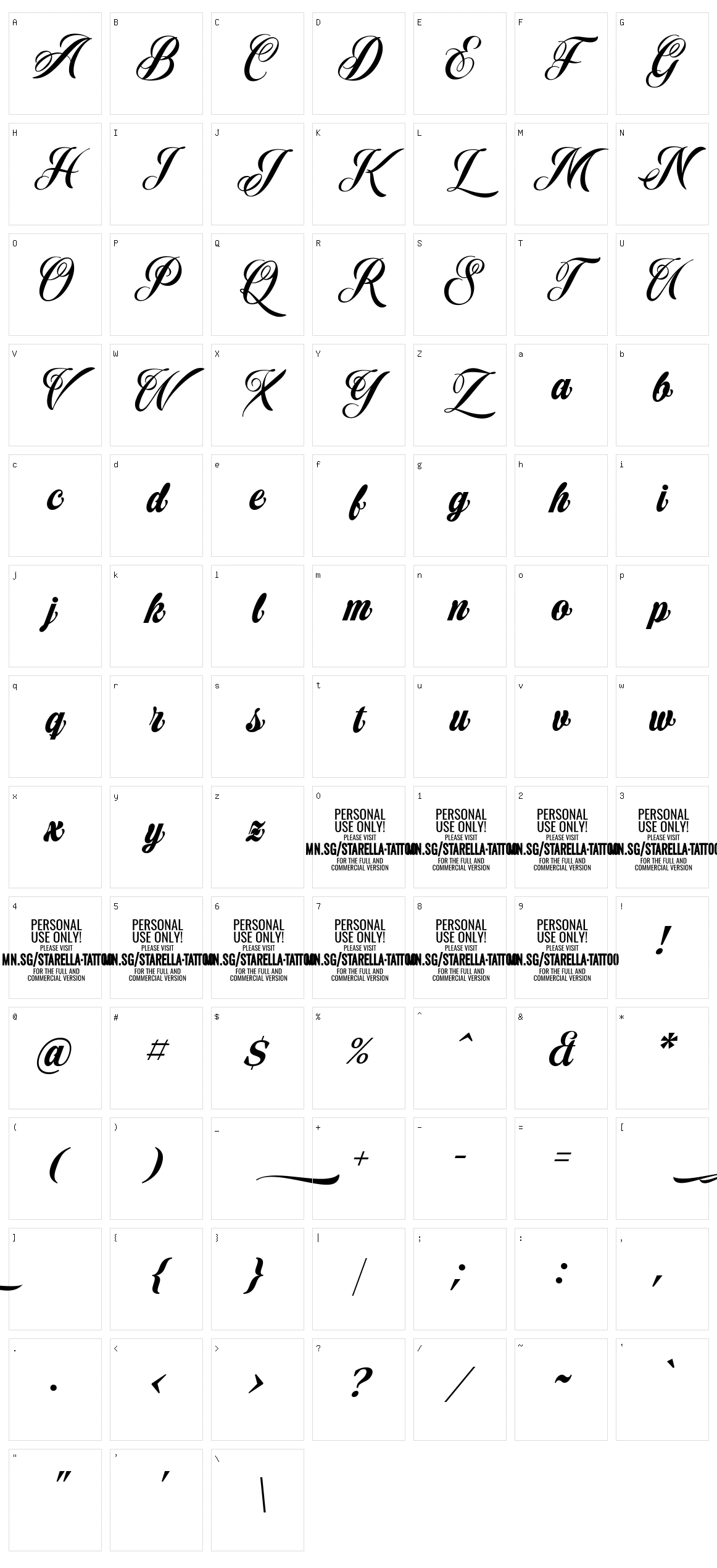
Starella Tattoo is a professional typeface with flowing
letter forms representing the merge between beauty and attitude.
The font is provided as a regular version, as well as a version
decorated with diamonds in each letter.
Use symbols _ [ ] at any place in a word to create swashes.
Example: S[tarellaTatt]oo
It supports all Latin-based European languages, contains numbers
and all symbols you'll ever need.